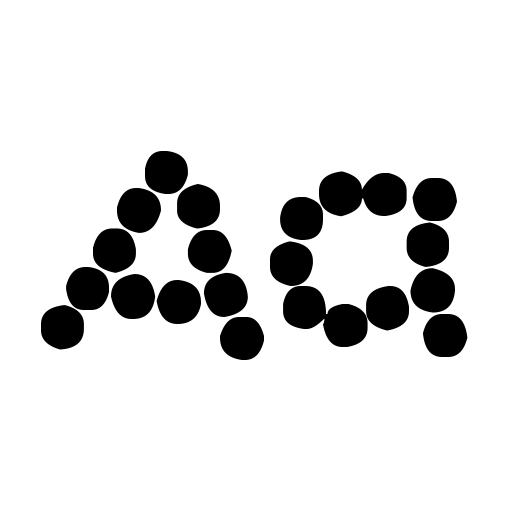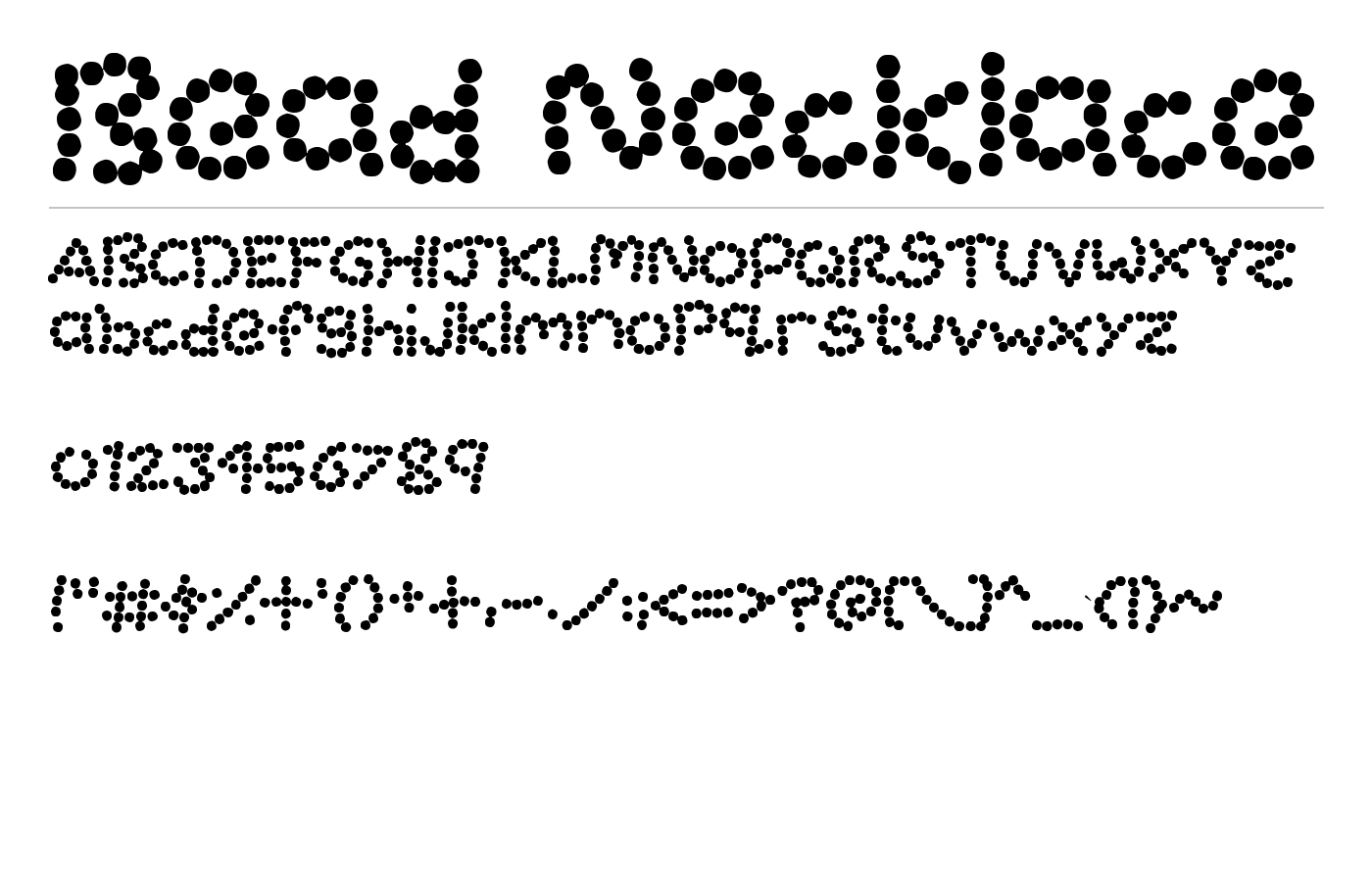
Bead Necklace is a playful, sans serif display font composed of circular dot patterns that resemble strings of beads, giving it a whimsical and tactile feel. Its bold weight and uniform stroke width create a fun, informal look perfect for creative branding, children’s materials, and decorative headlines where a unique, handcrafted vibe is desired. This font stands out in designs that seek to convey friendliness and charm with a modern, artistic twist.
Bead Necklace Font
About Bead Necklace Font